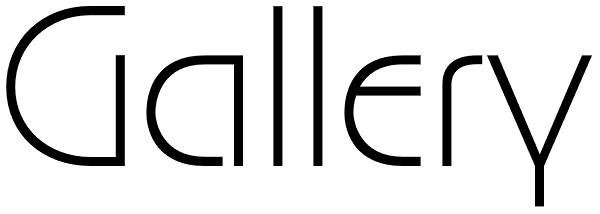
Gallery
Browsing through film archives at an independent film and audio production company in Winnipeg, Patrick Griffin spotted some unique set letters on a sign and a lawn chair in a 1980s B-movie entitled "Canada: Another Government Movie". The film...